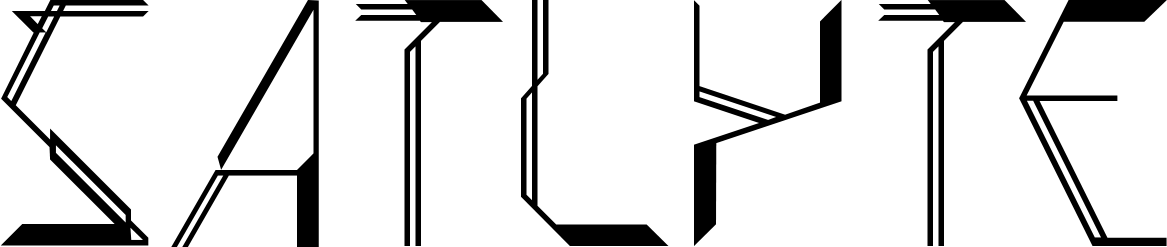
Satlyte Font
Designed byRudi Winarko
Today’s font is a unique and creative linear font with each character designed with crooked elements. This font is called Satlyte and it will give your readers a sneak peek into the future!
You can use this for any futuristic event or party flyer and banner, product introduction posters, and any gaming events. This font is an all-caps font and it lacks a numeric set.